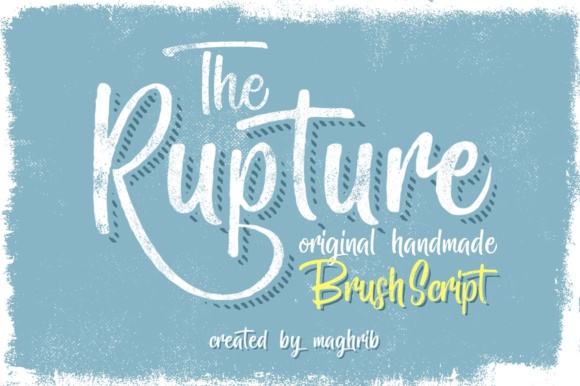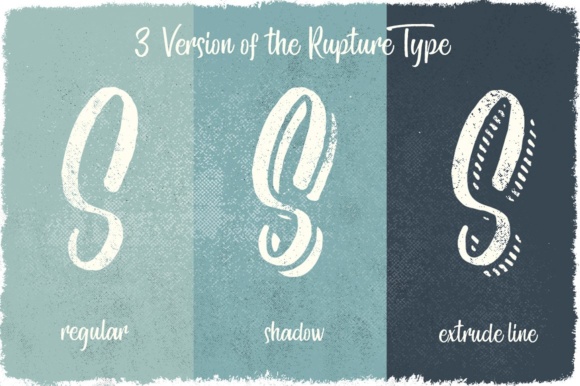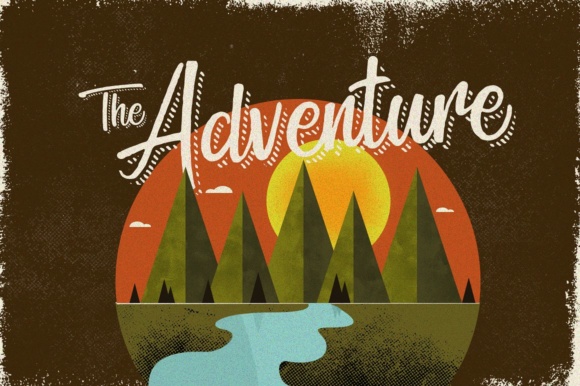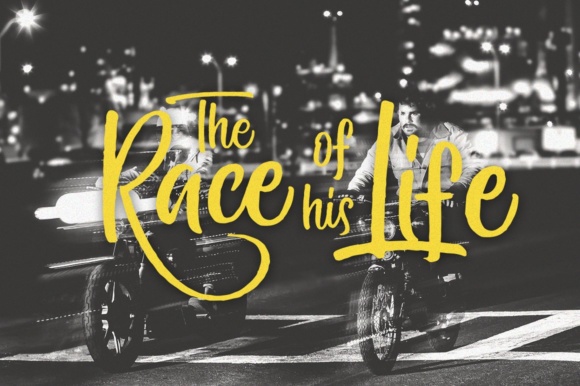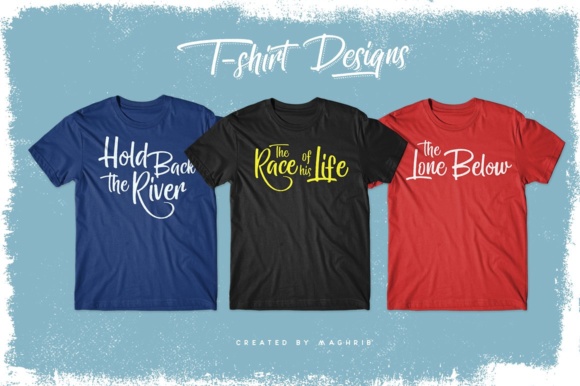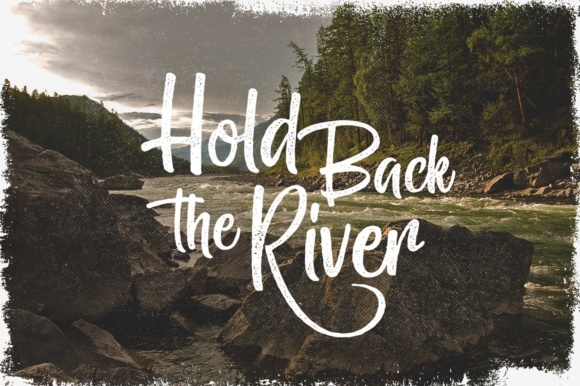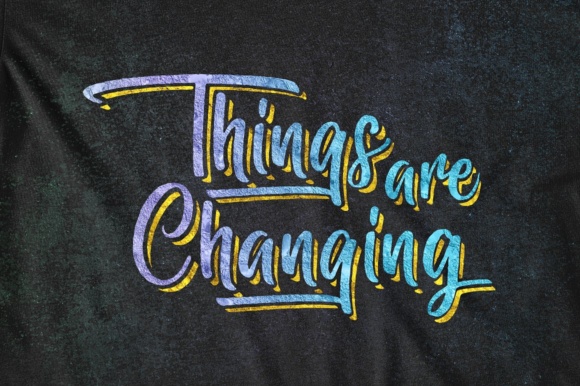
HomeScript FontsThe Rupture Font Script Fonts The Rupture Font FacebookXPinterestWhatsApp The Rupture Font Poster 2 The Rupture Font Poster 3 The Rupture Font Poster 4 The Rupture Font Poster 5 The Rupture Font Poster 6 The Rupture Font Poster 7 About The Rupture Font The Rupture is an original hand painted, brush script. It had a good readability and a string look. DOWNLOAD ON CREATIVE FABRICAThis font is sold and delivered by Creative Fabrica. Font Canyon may earn a commission if you buy through this link. People also explored Miss Beauty Font Sugar Snow Font Portland Batmoon Font Baston Font Darlothes Font Tourism Humble Font Bordeaux Font Saghea Font 313 0 TagsThe Rupture Font Previous articleSouthern California FontNext articleMerry and Bright Font LEAVE A REPLY Cancel reply Comment: Please enter your comment! Name:* Please enter your name here Email:* You have entered an incorrect email address! Please enter your email address here Website: Save my name, email, and website in this browser for the next time I comment. Personal Use Free Blue Highway Personal Use Free Read more about this font Built Tilting Personal Use Free Read more about this font Lion Teen Personal Use Free Read more about this font The Fourth Avenue Personal Use Free Read more about this font BLOG Top 7 Google Fonts Alternatives for Faster and Privacy-Friendly Web Design (2025) Top 7 Google Fonts Alternatives for Faster and Privacy-Friendly Web Design (2025) When it comes to web typography, Google Fonts has long been the go-to... Transform Your Website: Elevate Your Typography with 7 Best Web Font Generators Free vs Paid Fonts: Why Investing in Premium Fonts Is Worth It Free Fonts Risk: Why Free Fonts Can Be Dangerous for Designers